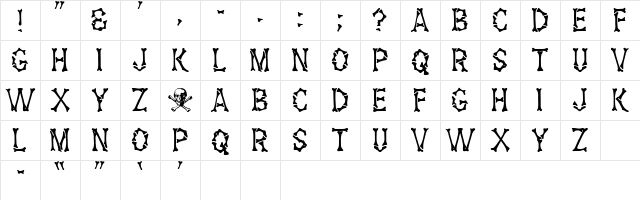
HOWARD Regular
Design Context for HOWARD Typeface
HOWARD is a composed and adaptable typeface that performs quietly and consistently across a wide range of design contexts.